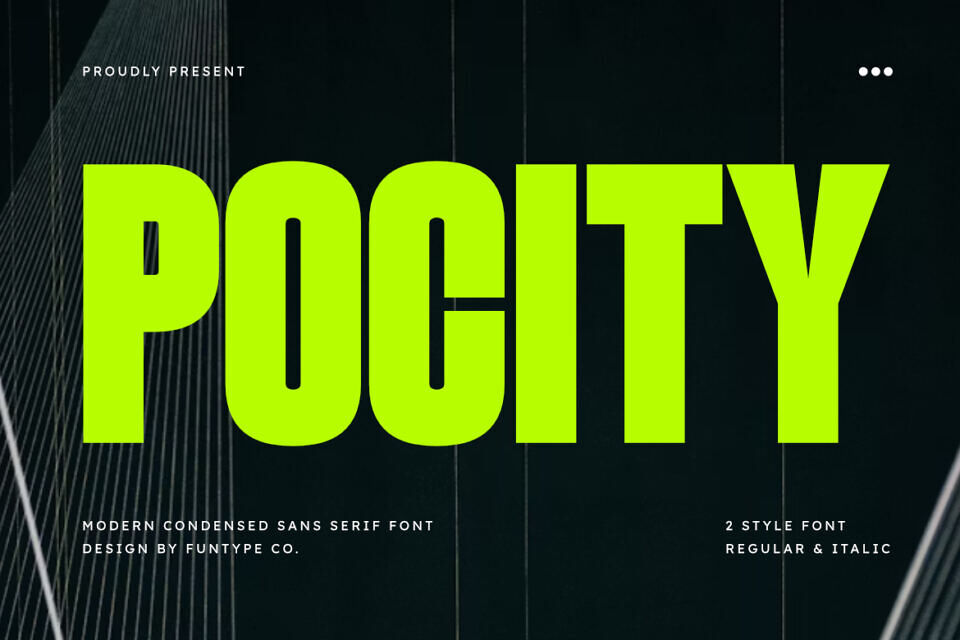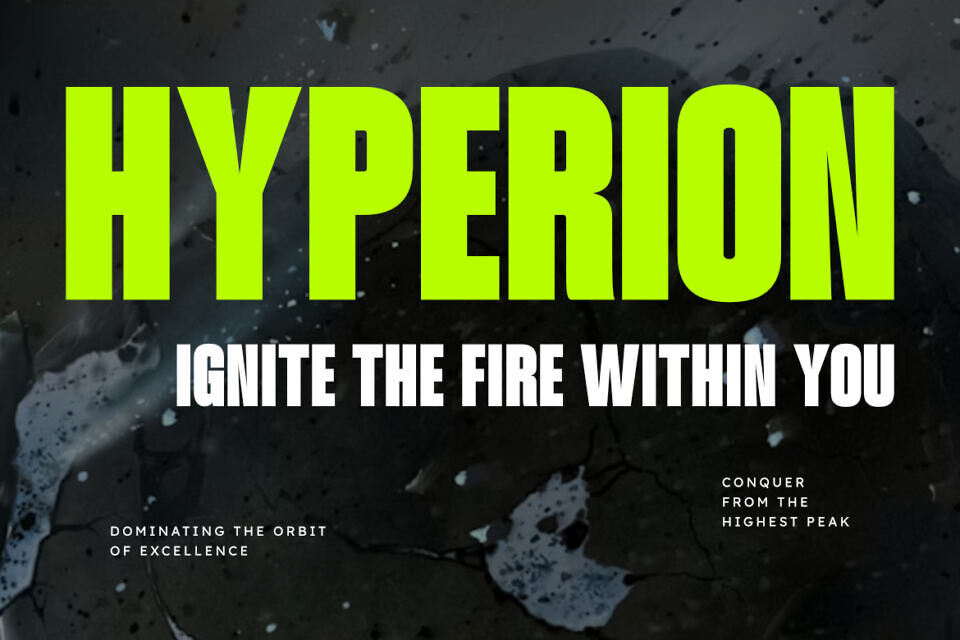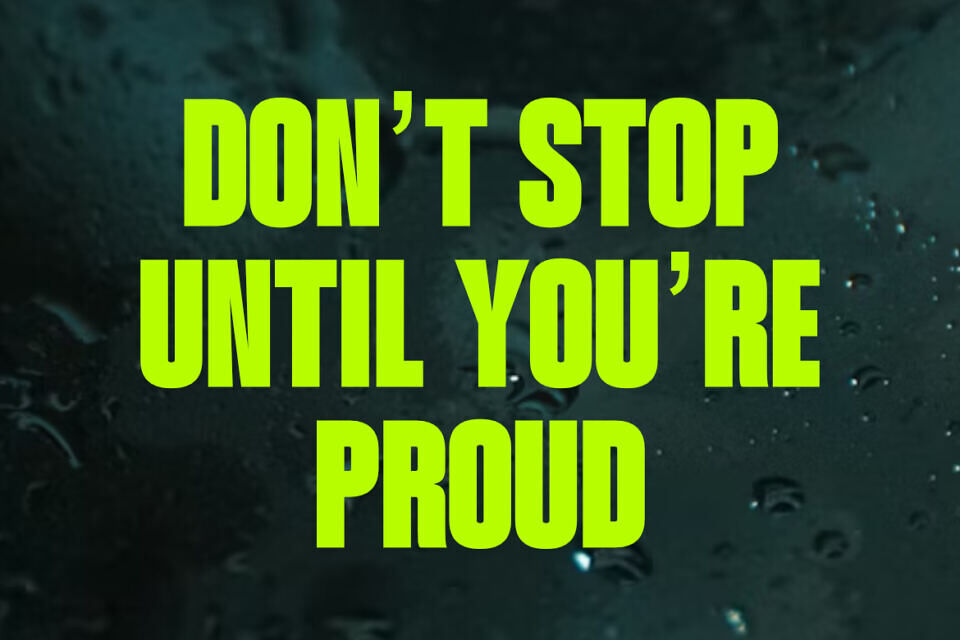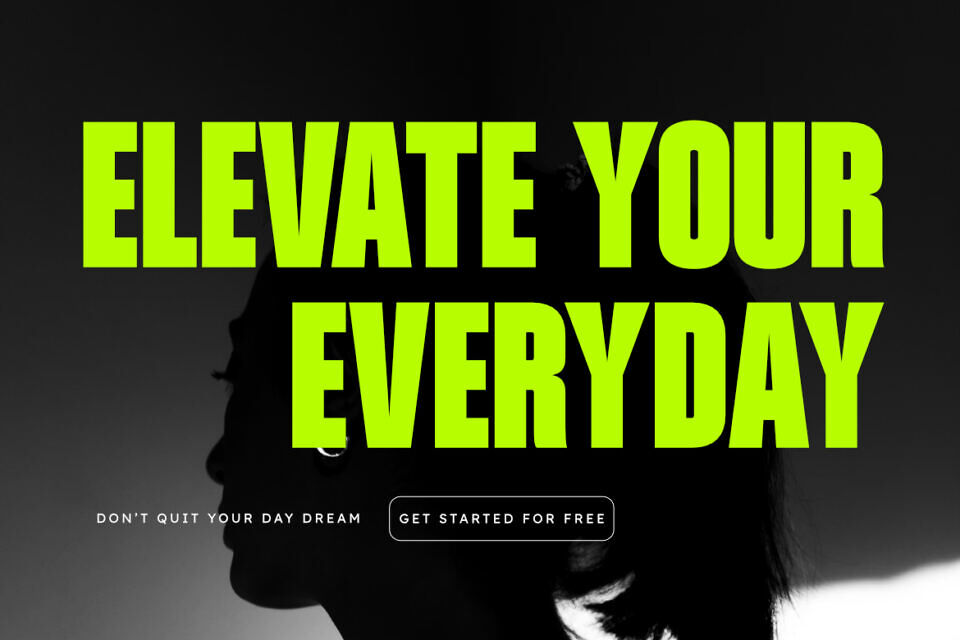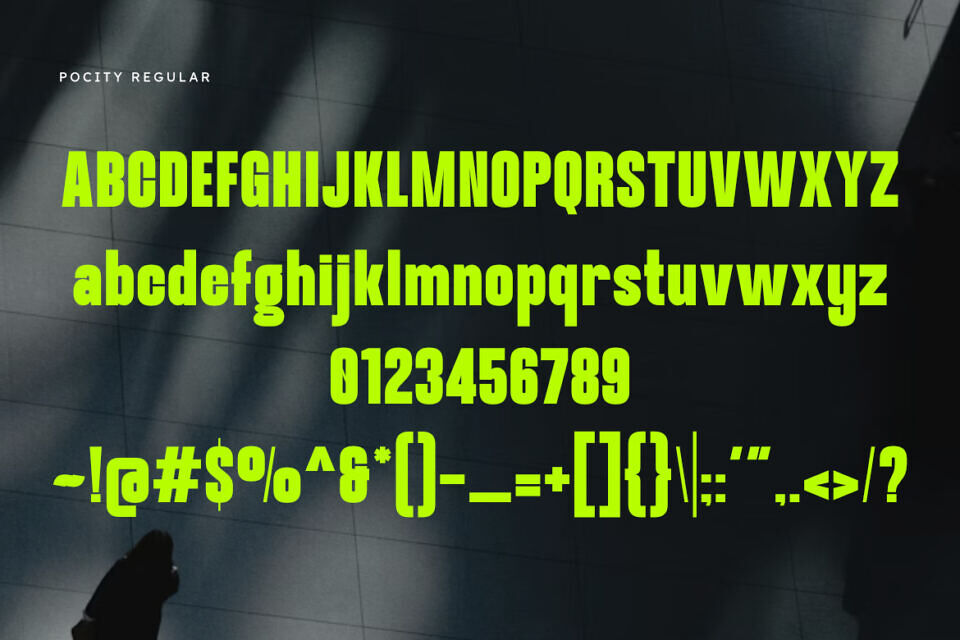
Pocity is a bold, high-impact modern condensed sans serif font designed for maximum visibility and a clean, contemporary aesthetic. Featuring two distinct styles—Regular and Italic—this typeface offers great flexibility for various design needs.
Its solid, narrow letterforms and powerful structure make it an exceptional choice for dominant headlines, professional branding, social media graphics, and impactful poster designs. Whether you’re aiming for a static or dynamic look, Pocity ensures your message is delivered with confidence and clarity across both digital and print media.